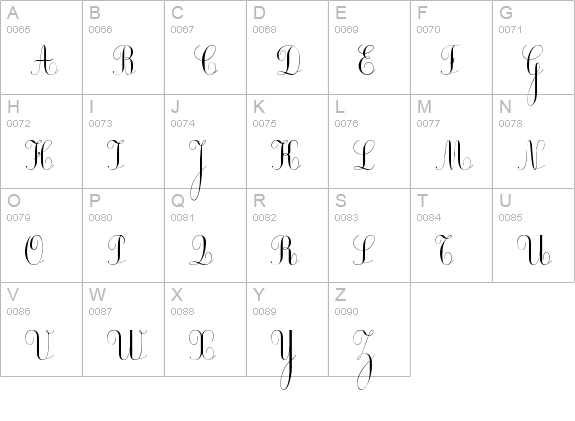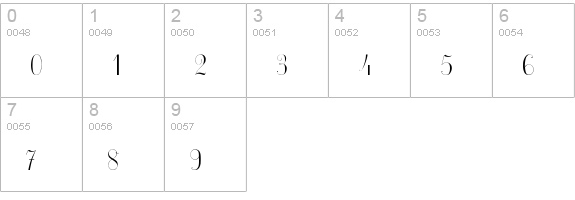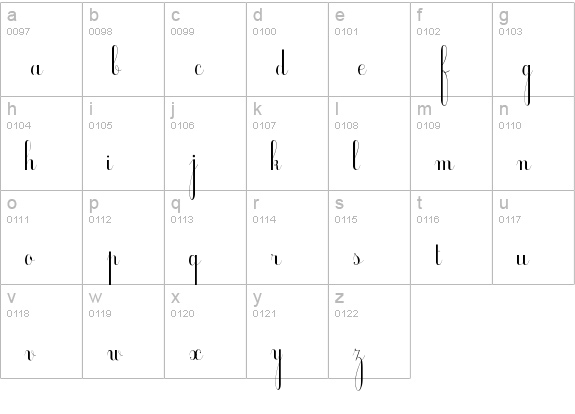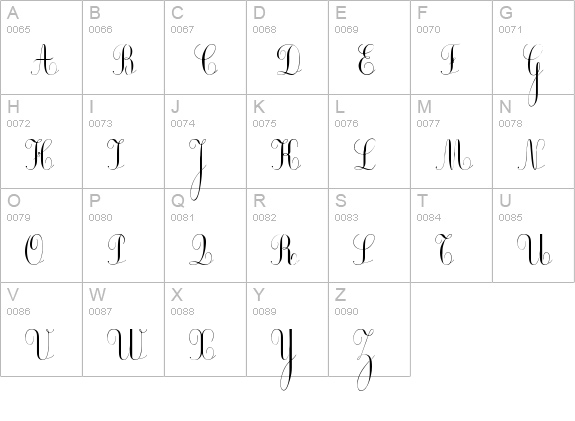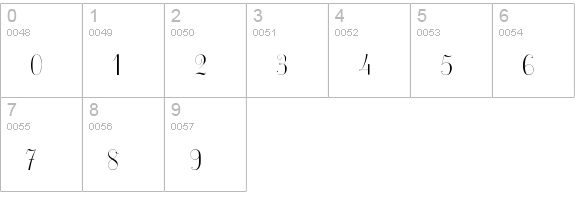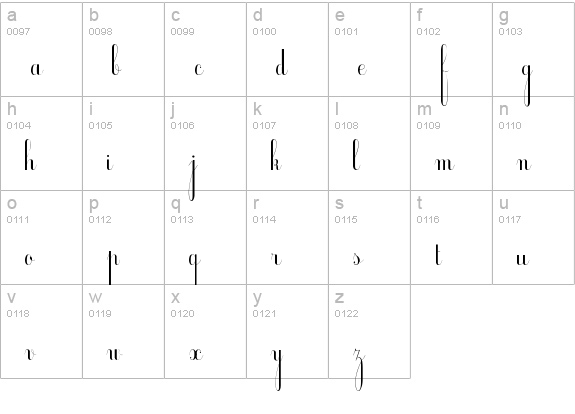
Ecolier Font Details
Ecolier font is a charming and whimsical typeface that brings a touch of playfulness to any design project. With its rounded edges and friendly appearance, this font is perfect for creating a lighthearted and youthful atmosphere. The Ecolier font is ideal for various applications, such as children's books, posters, invitations, and greeting cards. Its unique style adds a delightful element to any design, capturing the imagination of both young and old alike. One of the standout features of Ecolier font is that it is freely available to download at FontsMarket.com. This means that you can easily access and use this font in your creative endeavors without any cost. The availability of this font for free ensures that it is accessible to a wide range of designers, allowing them to bring their ideas to life without any financial constraints. Whether you are designing a children's book cover, creating a playful logo, or adding a touch of whimsy to your website, Ecolier font is sure to make a lasting impression. Its versatility and charm make it an excellent choice for any project that requires a touch of creativity and fun. Download Ecolier font for free at FontsMarket.com and let your imagination run wild with its delightful and captivating letterforms. Embrace the joy and freedom that this font brings to your designs and watch as it brings a smile to the faces of those who encounter them.